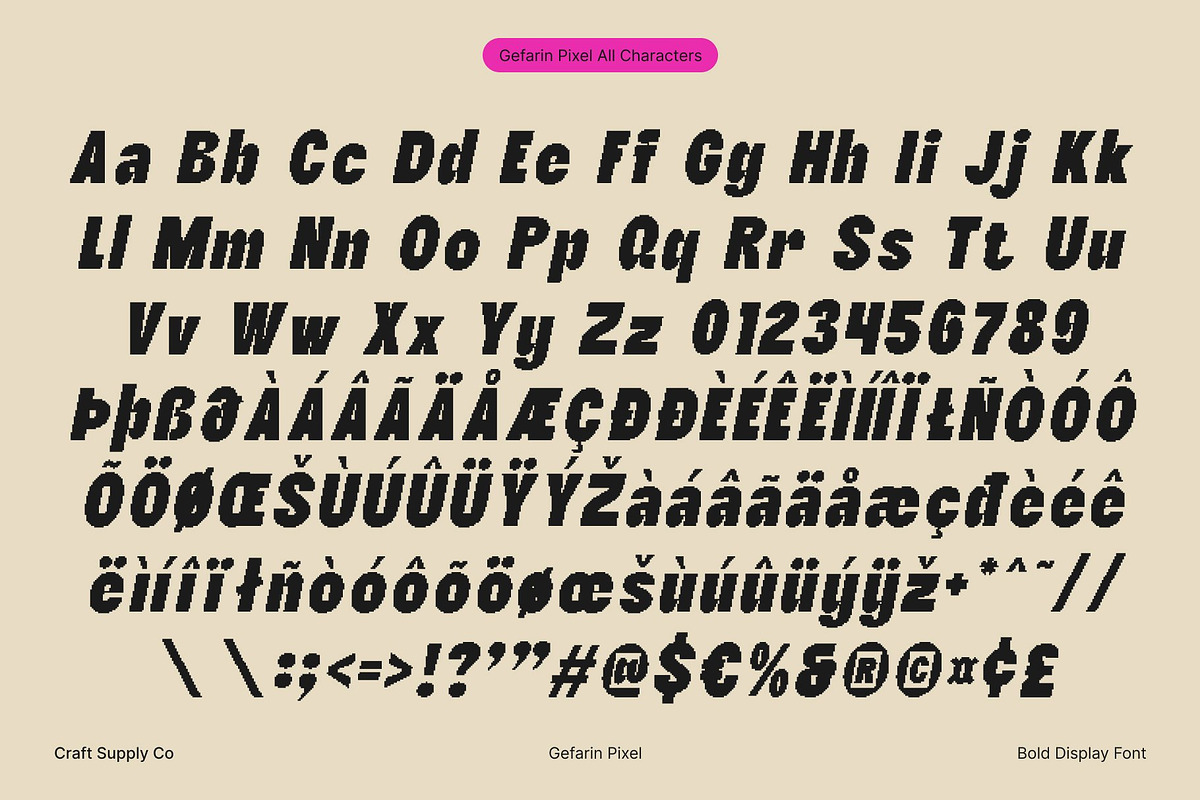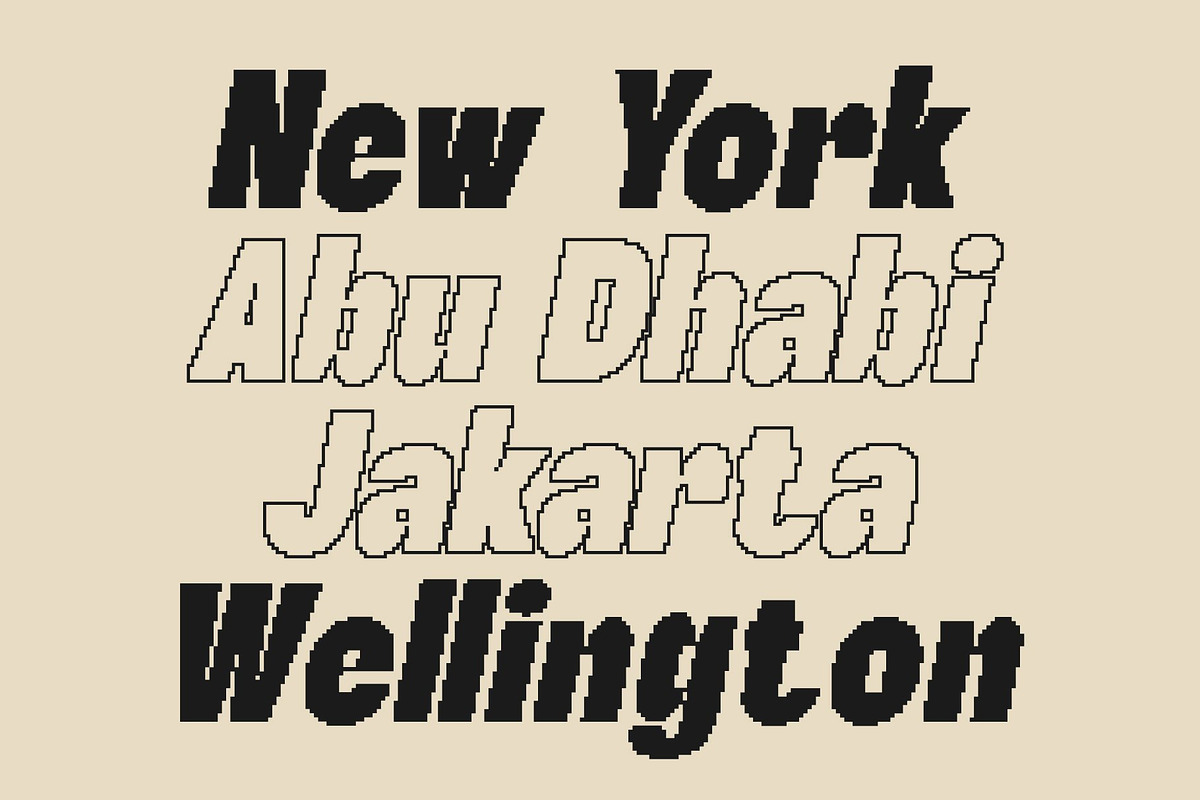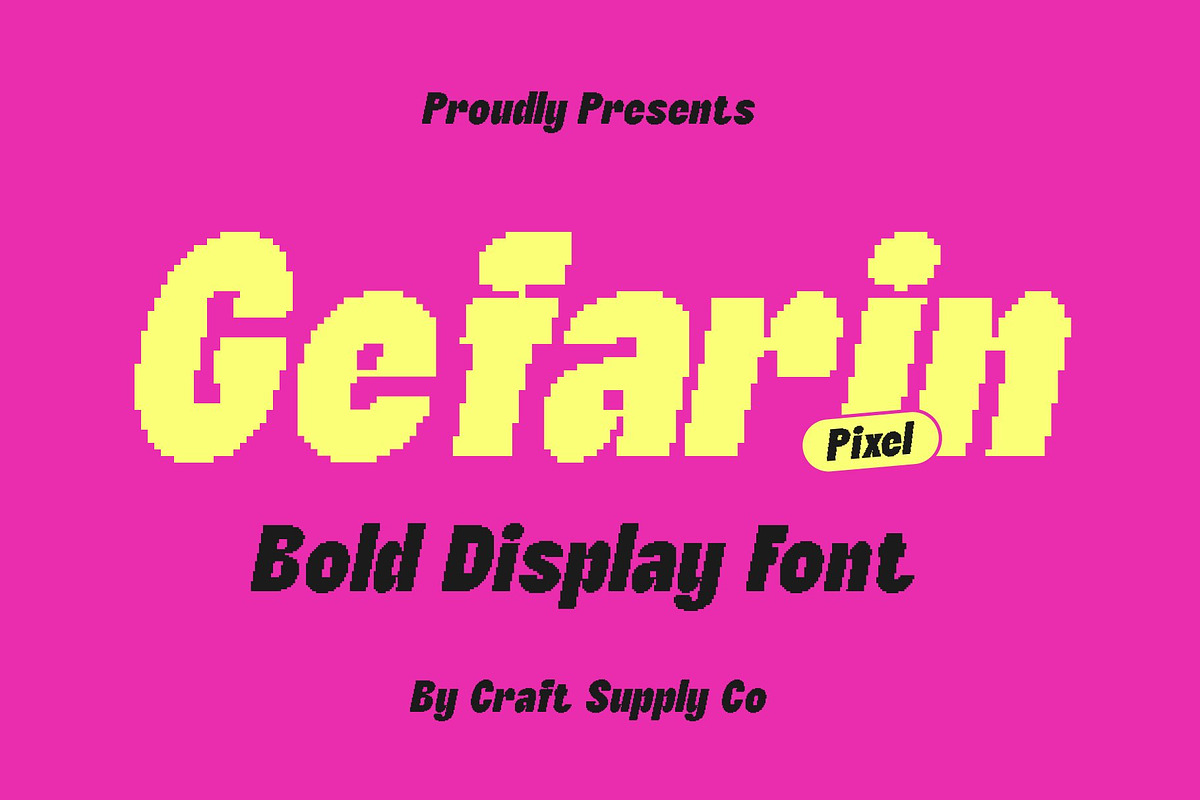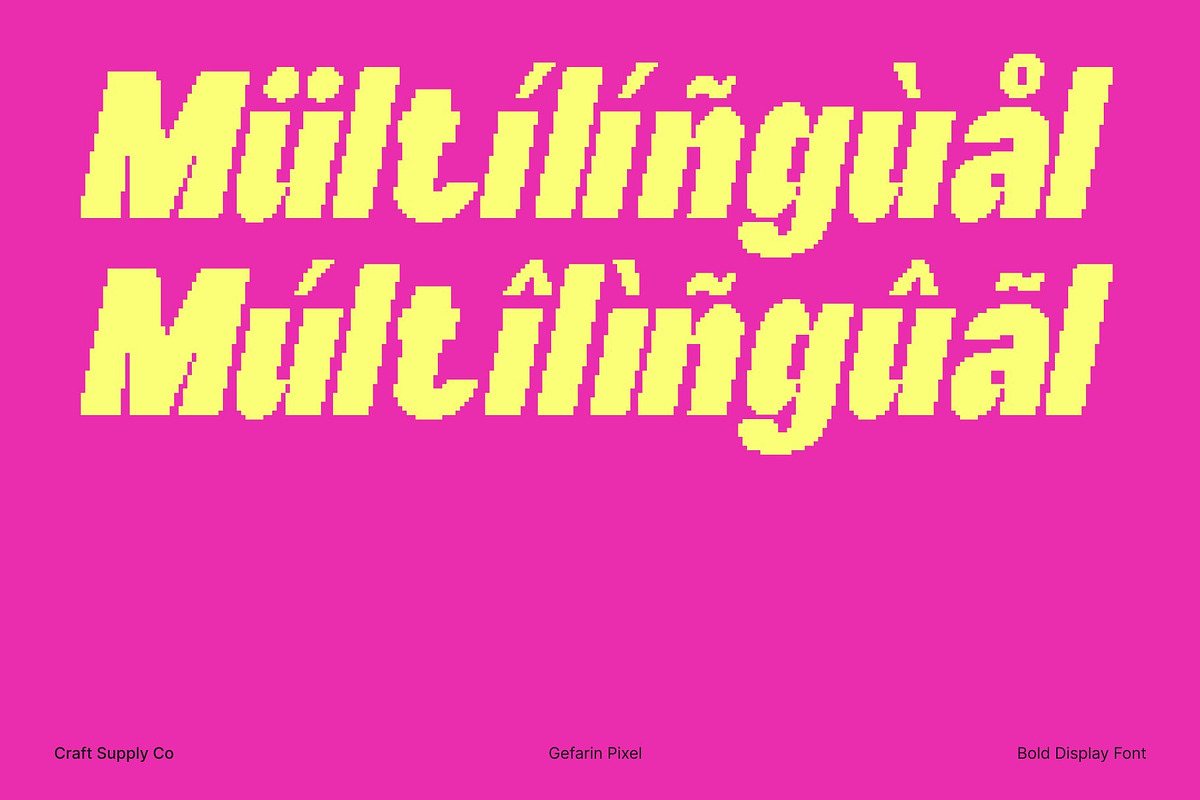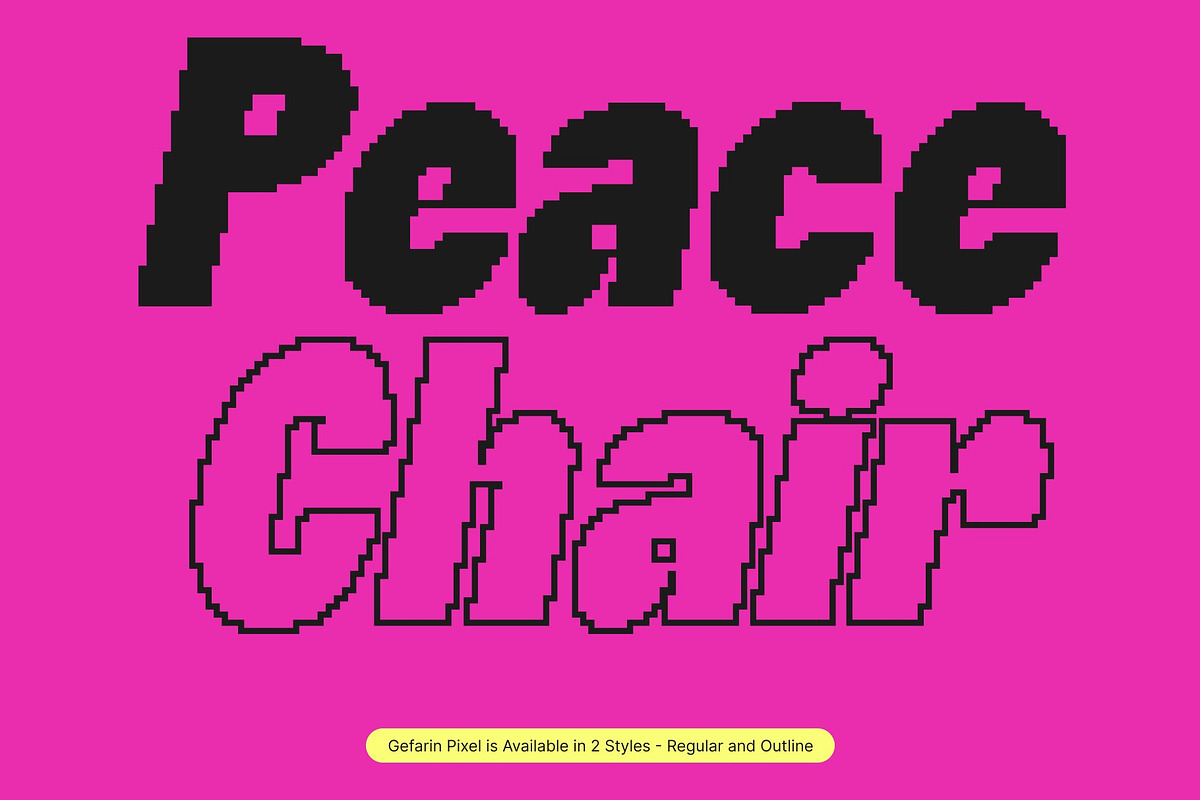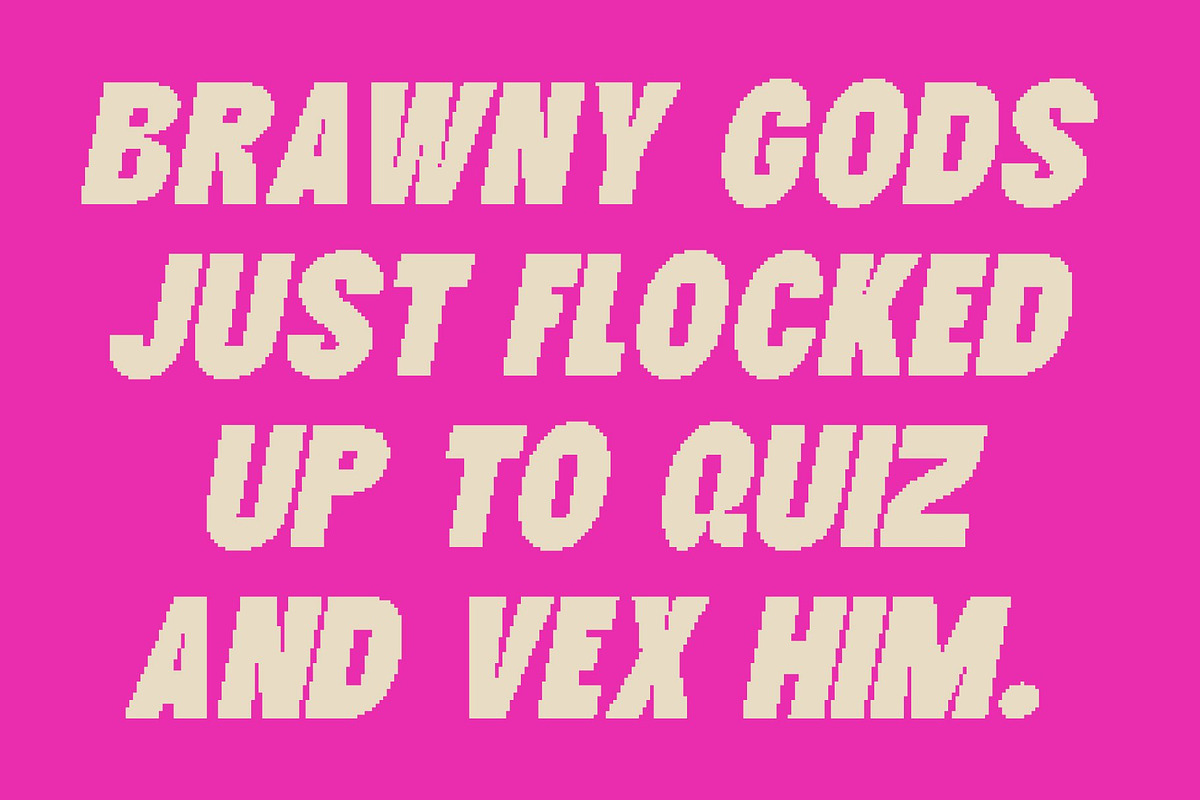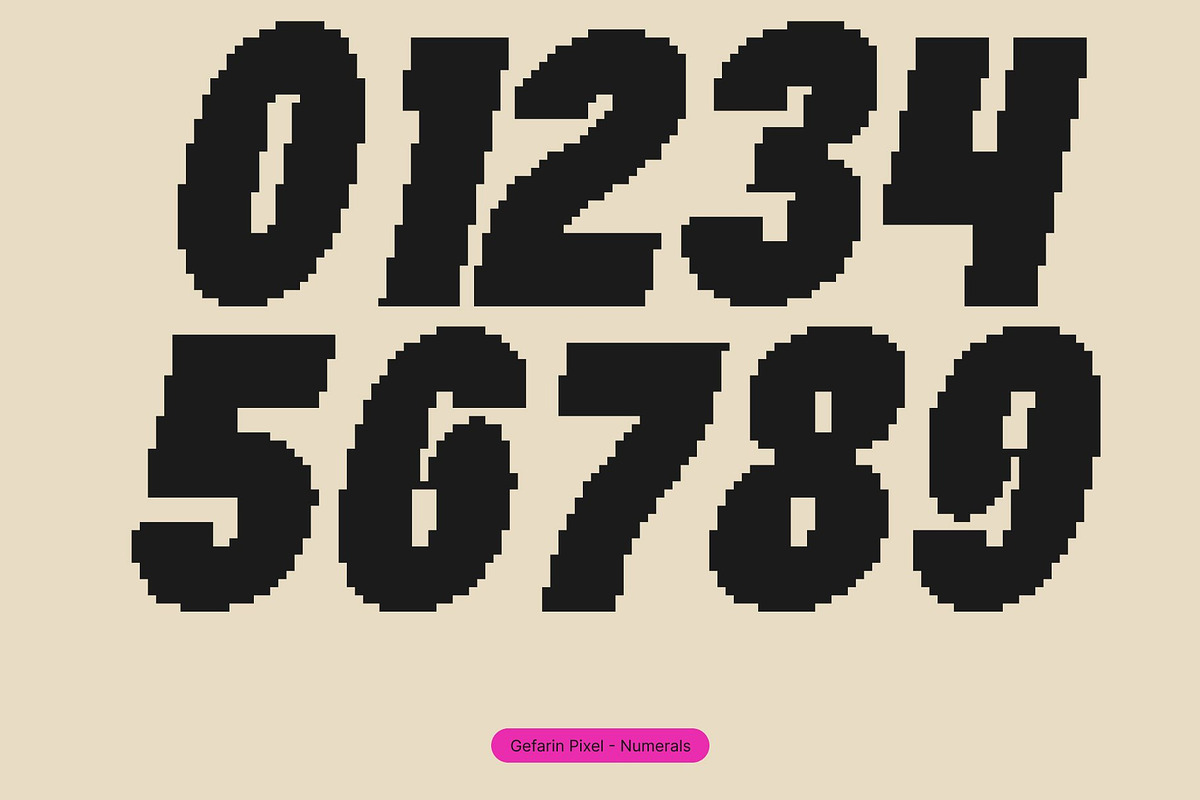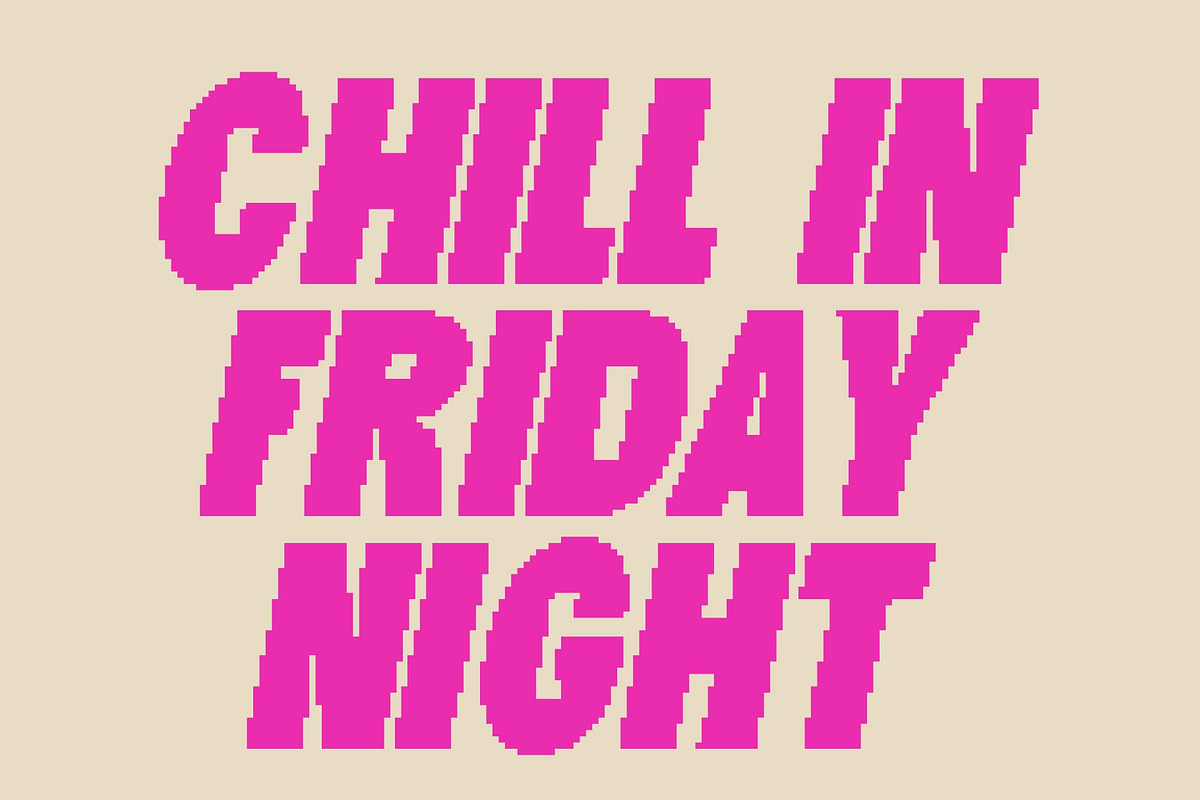
Gefarin Pixel
Gefarin Pixel – Modern Sans-Serif with Trendy Pixel Flair
Bold, Clean, and Contemporary Letterforms This is a modern sans-serif font built with strong, clean lines that project clarity and confidence. Its bold structure ensures high readability and visual impact, making it perfect for designs that aim to appear polished, modern, and instantly eye-catching.
Funky Pixel Flair for Unique Digital Character Infused with a playful pixel touch, introduces a fresh and distinctive personality to your typography. The pixel styling adds a trendy digital vibe that blends nostalgic charm with modern design sensibility ideal for projects that want to feel vibrant and energetic.
Perfect for Logos, Posters, and Creative Branding This font shines in display applications where creativity and visibility matter most. Whether you’re crafting logos, posters, packaging, or bold branding elements, this font enhances your design with its modern construction and pixel-inspired texture, ensuring every layout looks dynamic and memorable.
Trendy, Playful, and Visually Captivating By merging clean sans-serif shapes with funky pixel flair, offers a unique typeface that feels both contemporary and creatively expressive. Designers seeking a fresh, stylish, and digitally inspired font will find the perfect choice for modern, standout visual projects.